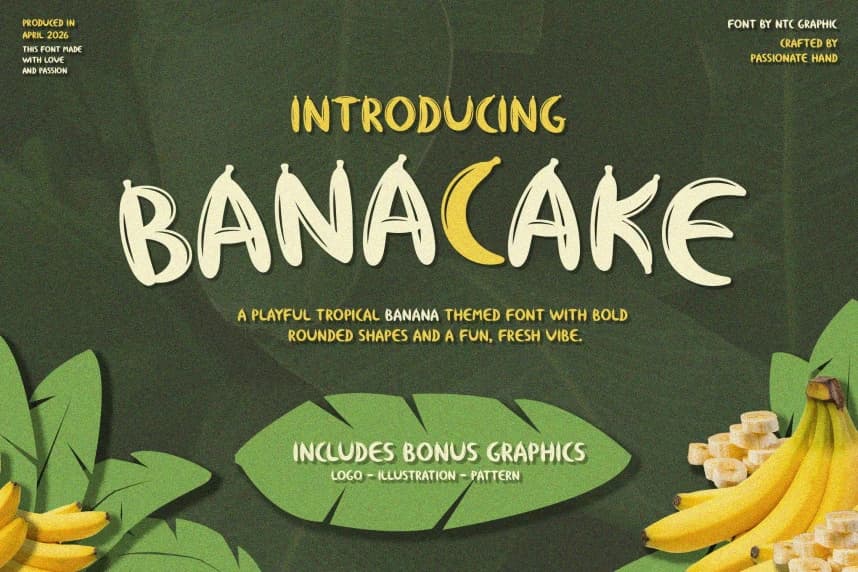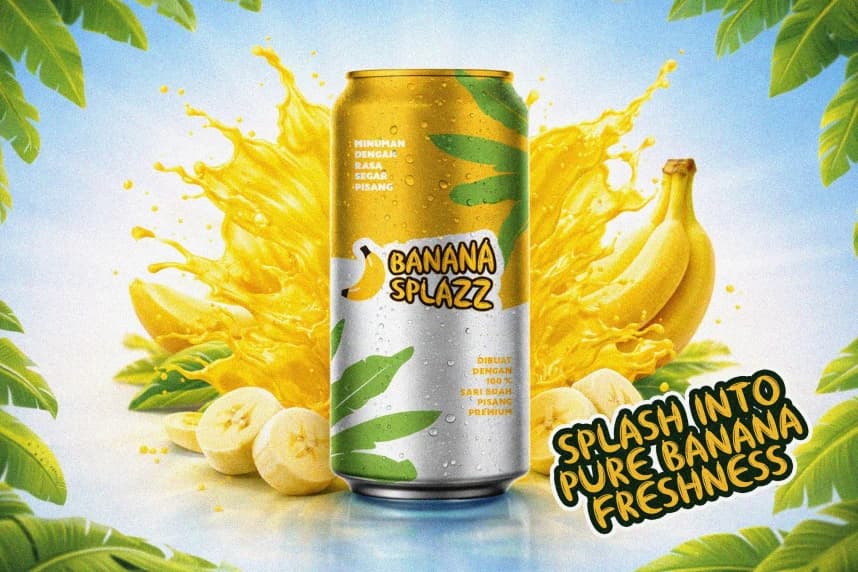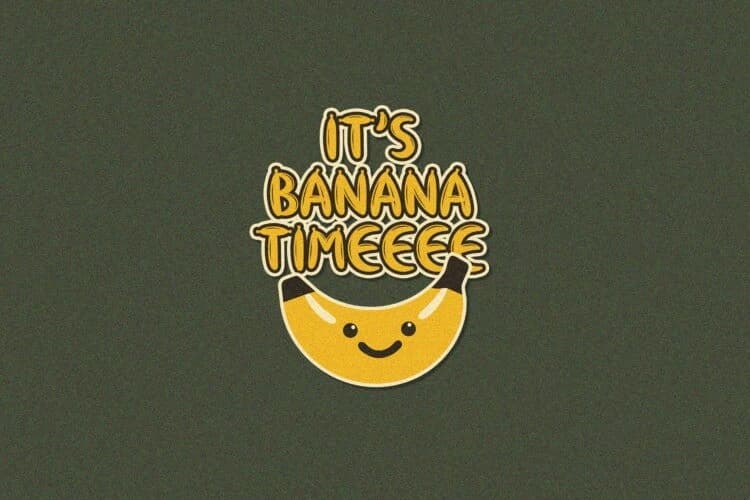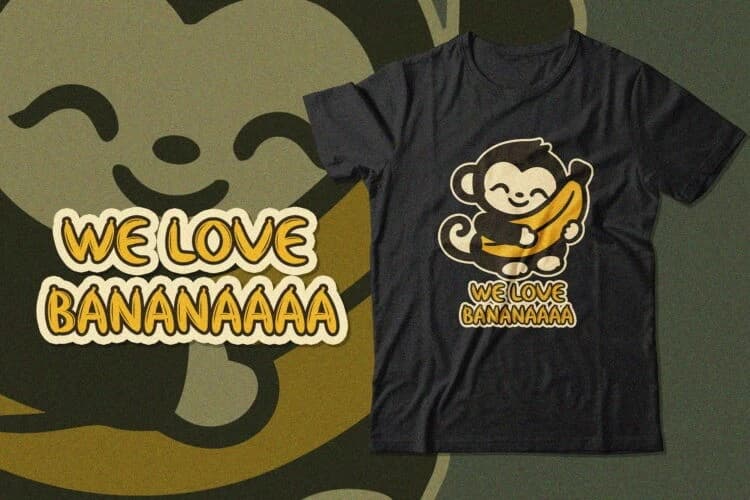
Banacake Playful Font
Banacake Playful Font is a playful tropical banana-themed font designed with bold, rounded shapes and a fun, fresh vibe. Inspired by the natural curves of bananas, this typeface brings a cheerful and eye-catching personality to your designs.